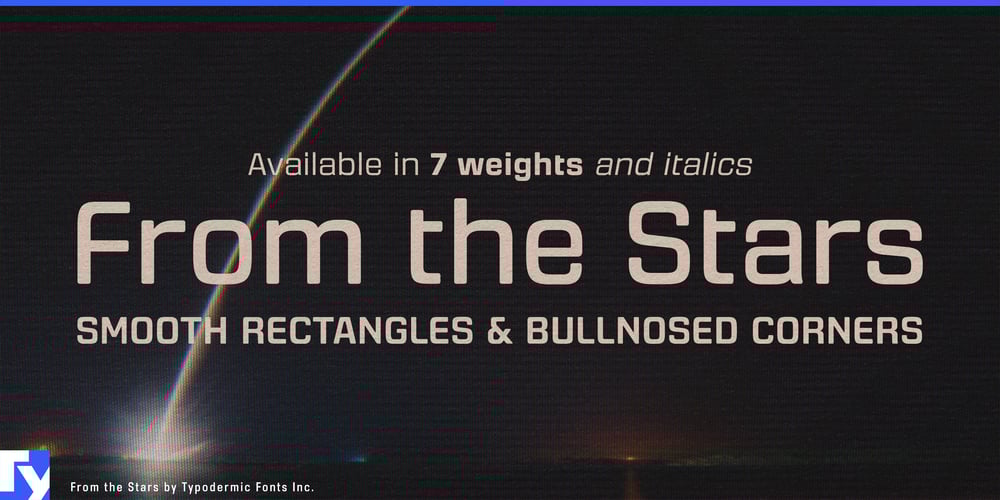
From the Stars Font Family was designed by Ray Larabie, Chikako Larabie and published by Typodermic. From the Stars contains 14 styles and family package options. From the Stars descends from the digital cosmos, a sans-serif rectilinear typeface that masterfully balances technical precision with an unexpected touch of softness. This font family is the culmination of industrial design aesthetics, offering a fresh perspective on modern typography.At first glance, From the Stars exudes a sense of technological prowess. Its tight style and closed curves speak the language of precision engineering, making it an ideal choice for designs that need to convey technical sophistication. The compact aesthetic and rounded rectangular forms echo the sleek lines of cutting-edge gadgets, seamlessly integrating with contemporary industrial design. Yet, beneath this technical exterior lies a subtle warmth. The softened edges of its characters introduce an element of approachability, tempering the stark geometry with a human touch. This delicate balance allows From the Stars to communicate complex ideas without feeling cold or impersonal—a rare feat in the world of tech-inspired typography.From the Stars offers remarkable versatility with its seven weights and accompanying italics. This range allows designers to fine-tune their message, from whisper-quiet thin styles perfect for elegant body text to bold weights that command attention without shouting. The typeface’s clarity shines through at all sizes, ensuring readability whether it’s used for intricate technical diagrams or expansive headlines. But From the Stars isn’t just about looks—it’s a linguistic polyglot. Supporting a vast array of Latin-based European writing systems, this typeface ensures your message maintains its perfect balance of tech and touch across linguistic boundaries. From Afrikaans to Zulu, From the Stars speaks the universal language of thoughtful design.Choose From the Stars when you need a typeface that resonates with the precision of modern technology while retaining a human element. It’s the typeface for those who understand that true innovation lies not in extremes, but in the artful balance between them.